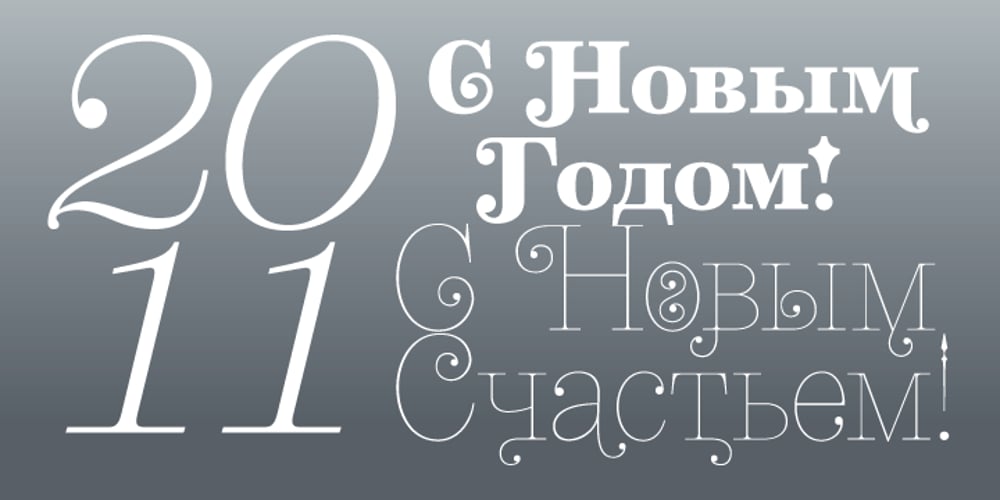
21 Cent Font Family was designed by Yuri Gordon and published by Letterhead Studio-YG. 21 Cent contains 10 styles and family package options. 21 Cent – not Century or Clarendon. This is an original font family designed from scratch. 21 Cent is named after a magical coin that brings good luck. And well, in honor of the 21st century, of course. 21 cent family is used in the almanac of the State Hermitage Museum, St. Petersburg, Russia. All members of 21 Cent family include the expanded character set of with support of Cyrillics, Central European and Baltic languages.